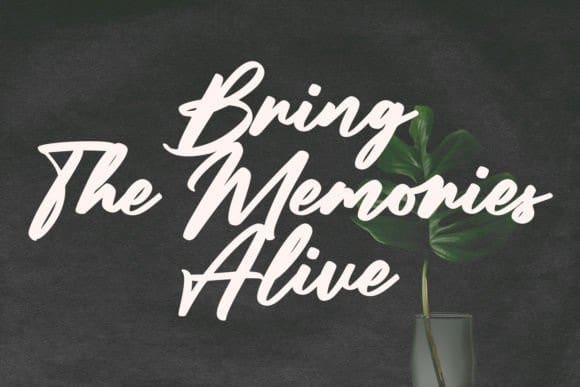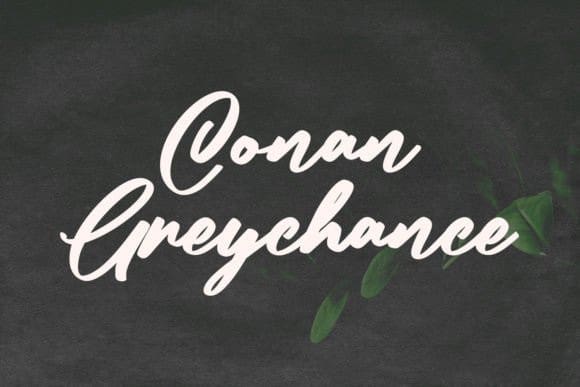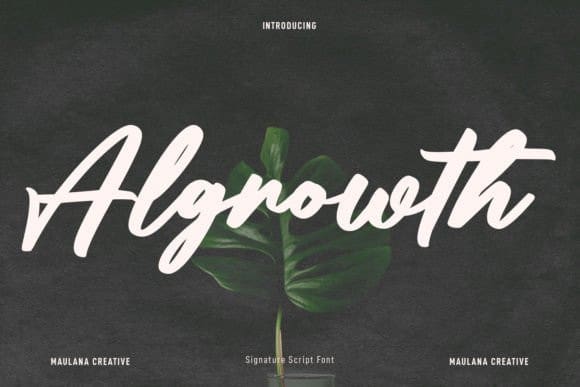
Algrowth Script Font
Algrowth Script Font is a casual and bold script font. No matter the topic, this font will be an incredible asset to your fonts’ library, as it has the potential to elevate any creation.